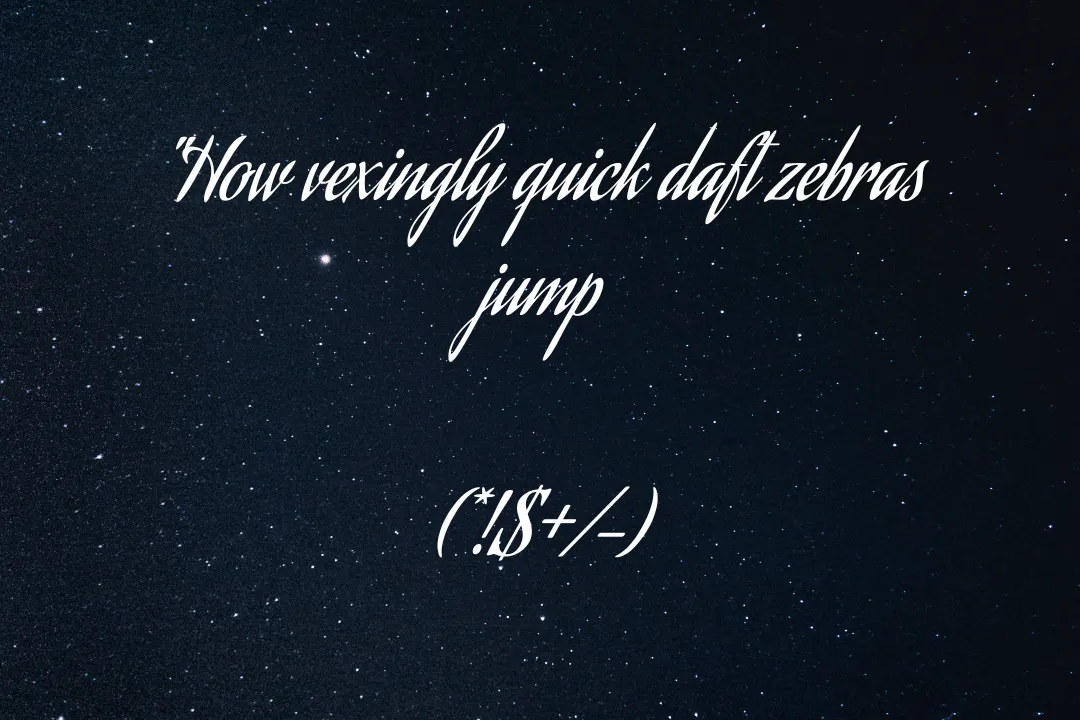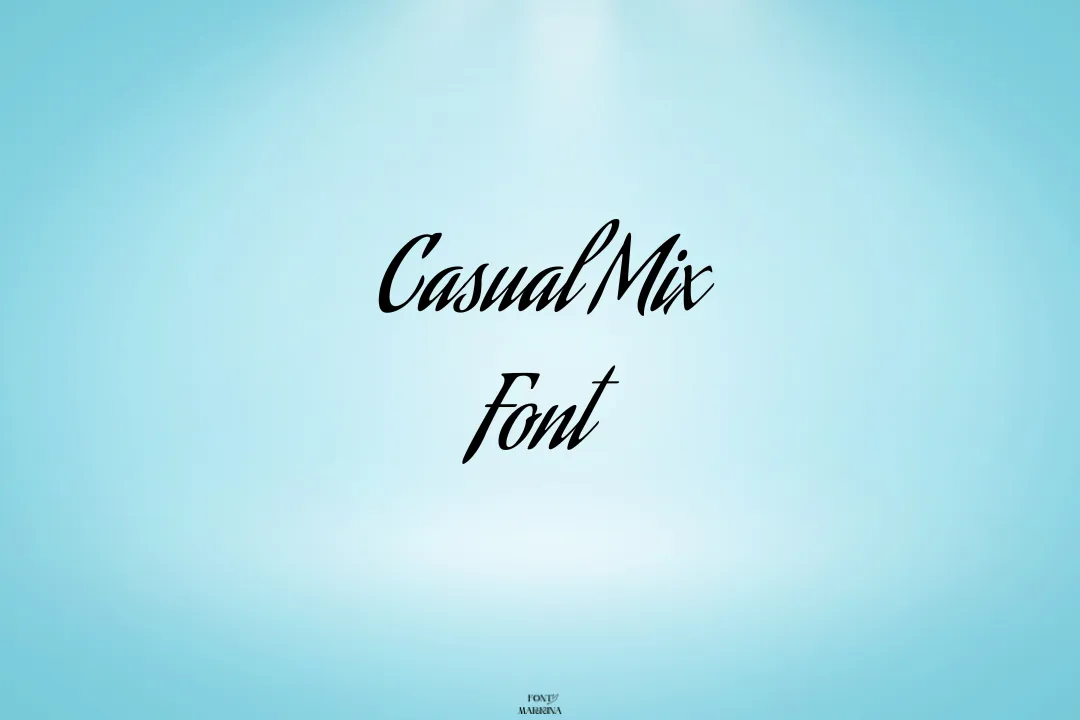
The Casual Mix Font is a typeface created by graphic designer Marcelo Inez, and it is categorized as a handwritten font. It features irregular strokes, varying letter heights, and a casual, whimsical style. The letters are not perfectly straight and uniform, but instead, have a sense of personality and uniqueness. This makes the font ideal for projects that require a personal touch, such as invitations, greeting cards, and social media graphics.
Overall, It has a playful and informal appearance that can add a touch of fun and creativity to any design project. This font works perfectly with the reinata font. It has an almost childlike quality that adds a touch of whimsy to any design. The font features lowercase and uppercase letters, numbers, and common punctuation marks.
The letters of this font are not all the same size or height, which gives the font a sense of playfulness and variation. Some letters have long loops or curvy tails, while others are more angular or jagged. The irregular strokes and uneven edges of the letters give the font a rustic and handmade feel, making it perfect for designs that require a personal touch.
Uses of Casual Mix Font
Casual Mix is ideal for projects that are intended to be informal, lighthearted, and fun. It can be used for anything from greeting cards, invitations, and posters to social media graphics and blog titles. The font’s unique style and irregularities make it stand out and draw attention to the text, making it an excellent choice for design projects that require a bit of personality and charm.
Due to its handwriting-style font that can be used in a variety of design projects, ranging from social media graphics and branding to packaging and editorial design. Its casual and friendly appearance makes it a popular choice for designs that require a personal and approachable touch.
One of the most common uses of Casual Mix is for social media graphics. Its organic and hand-drawn style is a great fit for platforms like Instagram, where users are looking for authentic and engaging content. It is suitable for CSS, adobe photoshops, and Canva. You can combine this font with antro vectra font. By using this font, designers can create social media graphics that feel personal and approachable, making it easier to connect with their audience.
Another popular use for it is in branding and packaging design. Brands that want to convey a friendly and approachable image may use it in their logos or product packaging. The font’s casual appearance can help to create a relaxed and friendly atmosphere, which can be particularly effective for food and beverage products or lifestyle brands.
You can also be used in editorial design, such as in magazines or books. The font’s handwritten appearance can add a personal and human touch to editorial layouts, making them more approachable and engaging to readers. By using this font in headlines or quotes, designers can create visual interest and break up long blocks of text.
Casual Mix Font View
Who created Casual Mix font?
This font was created by a designer named Marcelo Inez. He is known for creating a variety of typefaces and graphic design resources.
What type of font is Casual Mix?
It is a handwritten script font. Its style is casual and organic, with variations in line weight and spacing to create a hand-drawn appearance.